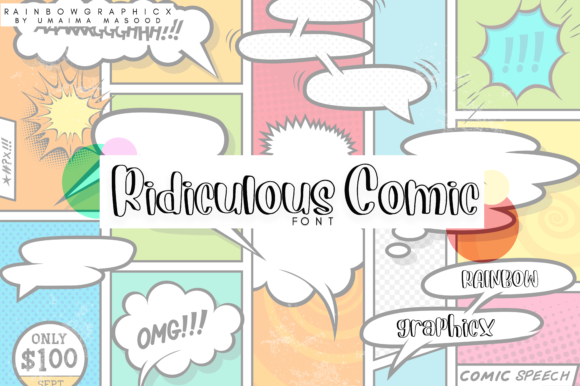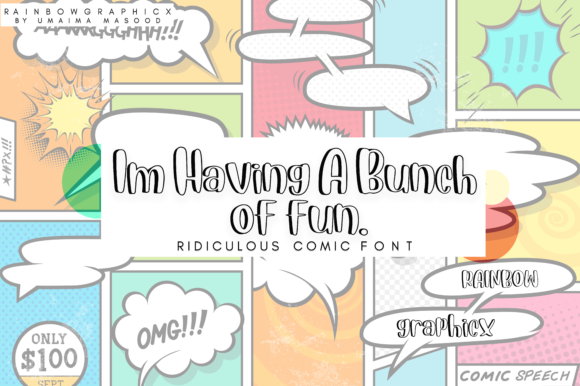
Ridiculous Comic Font
About Ridiculous Comic Font
Inspired by iconic vintage comic typefaces, Ridiculous Comic is a one-of-a-kind font that will add a powerful cartoonish feel to any design!